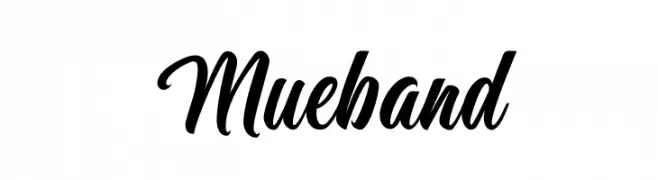
A modern uncial-style font with bold, rounded characters and a historical flair.
Hand-drawn, whimsical Christmas tree illustrations with playful details.
A bold, classic serif font with high contrast and pronounced serifs.
An intricate and artistic font with swirling, elongated strokes and decorative flourishes.
An elegant and flowing script font with ornate and decorative letterforms.
A decorative font with a textured, rope-like appearance, ideal for creative projects.
Numerals inside twelve-sided polygon shapes, resembling dice.
Geometric, dice-themed symbol font with numbers, directions, and dots.
A condensed uncial-style font with a medieval yet modern aesthetic.
A bold, uncial-style font with sharp serifs and a medieval yet modern aesthetic.
A bold, italicized uncial-inspired font with a medieval and calligraphic style.
Ornate floral decorative font with detailed botanical elements.
A decorative font with dragon-inspired motifs and intricate designs.
A Gothic-inspired font with playful, whimsical elements and sharp serifs.
An elegant, flowing script font with smooth, cursive letterforms.
Hand-drawn Christmas tree illustrations replace standard characters for a festive, decorative look.
An ornate script font with intricate loops and flourishes, reminiscent of traditional calligraphy.
An ornate and bold font with decorative uppercase and strong lowercase characters.
An ornate and decorative typeface with intricate detailing and flourishes.
A whimsical, star-studded font with a celestial theme.
A decorative icon set featuring various insect illustrations.
Bold, geometric sans-serif font with a modern and clean look.
A bold display font made of axe silhouettes for each character.
A decorative font with arrow-like embellishments and a tribal-inspired design.
An elegant, flowing script font with sweeping curves and delicate strokes.
A bold, 3D cartoon-style font with thick outlines and uppercase letters.
A bold, cursive font with decorative swirls and high contrast.
An elegant and intricate script font with ornate uppercase letters and flowing lowercase forms.